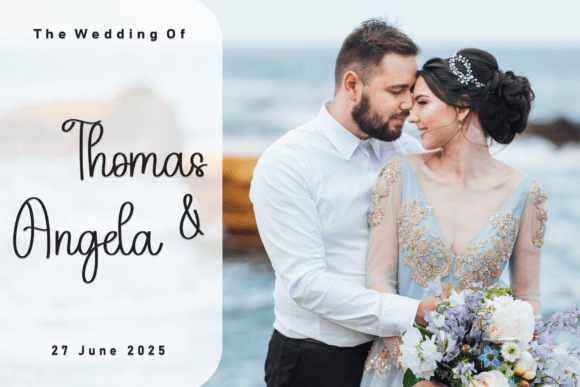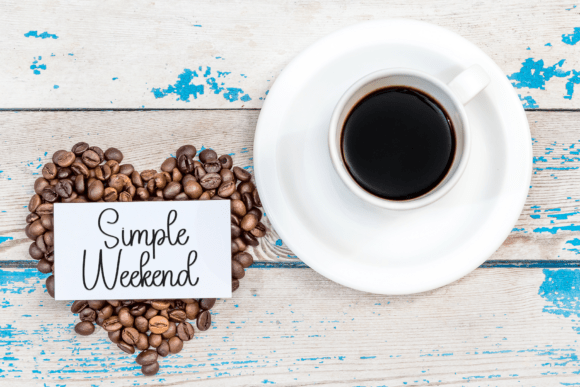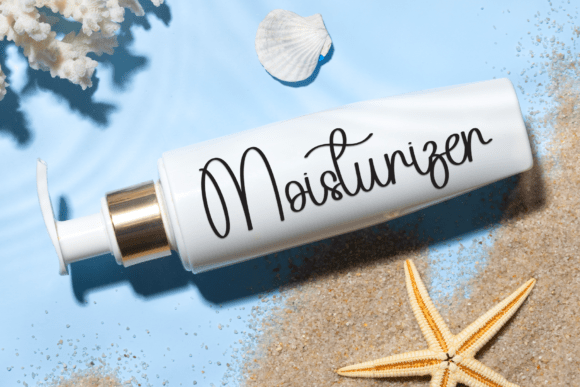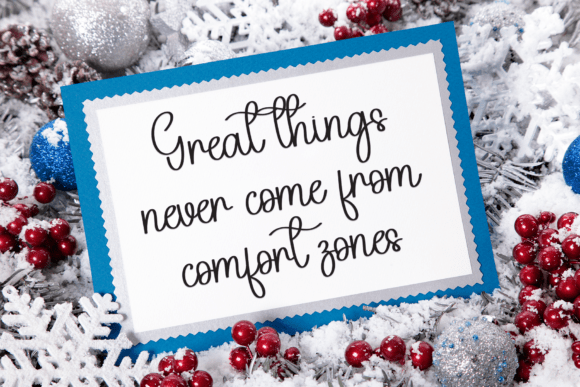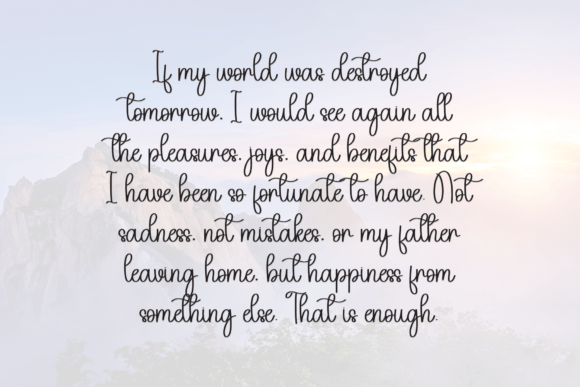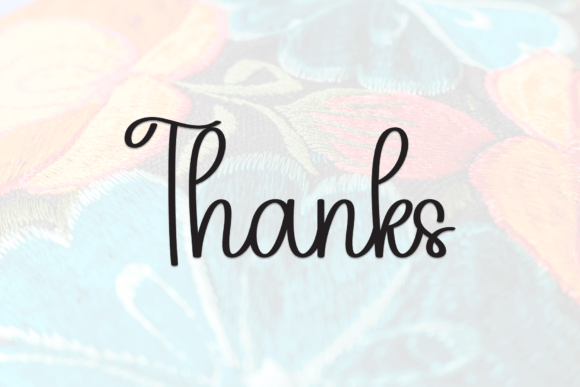
Experience the Captivating Allure of Embroidery Font
Are you looking for a typeface that can add a touch of whimsy and friendliness to your designs? Look no further than Embroidery Font, a tenderly crafted font that encapsulates a captivating allure and amiability. This delightful font is the perfect secret ingredient to add a mesmerizing touch to wedding invitations, bespoke cards, or any design that craves a sprightly sprinkle of enjoyment.
Conceived to Awe and Influence
Embroidery Font is conceived to awe and influence, making it the perfect choice for designers and crafters who want to create something truly special. With its joyful calligraphy, this font infuses a breath of inspiration into every creative endeavor. Whether you’re designing a wedding invitation, a greeting card, or a DIY project, Embroidery Font is sure to add a touch of magic to your work.
The Characteristics of Embroidery Font
So, what makes Embroidery Font so special? Here are just a few of its key characteristics:
- Whimsical allure: Embroidery Font has a playful, whimsical quality that makes it perfect for designs that need a touch of personality.
- Amiability: This font has a friendly, approachable feel that makes it perfect for designs that need to convey warmth and approachability.
- Joyful calligraphy: Embroidery Font features joyful, flowing calligraphy that adds a touch of elegance and sophistication to any design.
Uses for Embroidery Font
Embroidery Font is a versatile typeface that can be used in a wide range of design projects, including:
- Wedding invitations: Add a touch of romance and whimsy to your wedding invitations with Embroidery Font.
- Bespoke cards: Create one-of-a-kind greeting cards that stand out from the crowd with Embroidery Font.
- DIY projects: Add a personal touch to your DIY projects, such as scrapbooking, journaling, and crafting, with Embroidery Font.
- Signage: Use Embroidery Font to create eye-catching signage for your business or event.
Tips for Using Embroidery Font
Here are a few tips for getting the most out of Embroidery Font:
- Use it sparingly: Embroidery Font is a statement font, so use it sparingly to add emphasis and interest to your designs.
- Pair it with other fonts: Pair Embroidery Font with other fonts to create a unique and interesting contrast.
- Experiment with colors: Embroidery Font looks great in a range of colors, so don’t be afraid to experiment and find the perfect hue for your design.
In conclusion, Embroidery Font is a captivating typeface that is sure to add a touch of whimsy and friendliness to your designs. With its joyful calligraphy and amiability, this font is perfect for designers and crafters who want to create something truly special. Whether you’re designing a wedding invitation, a greeting card, or a DIY project, Embroidery Font is the perfect choice. So why not give it a try and see the magic for yourself?